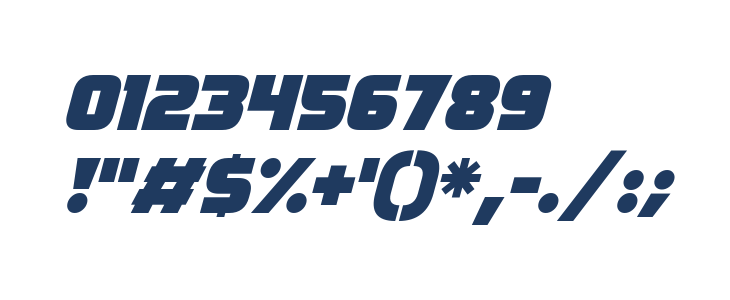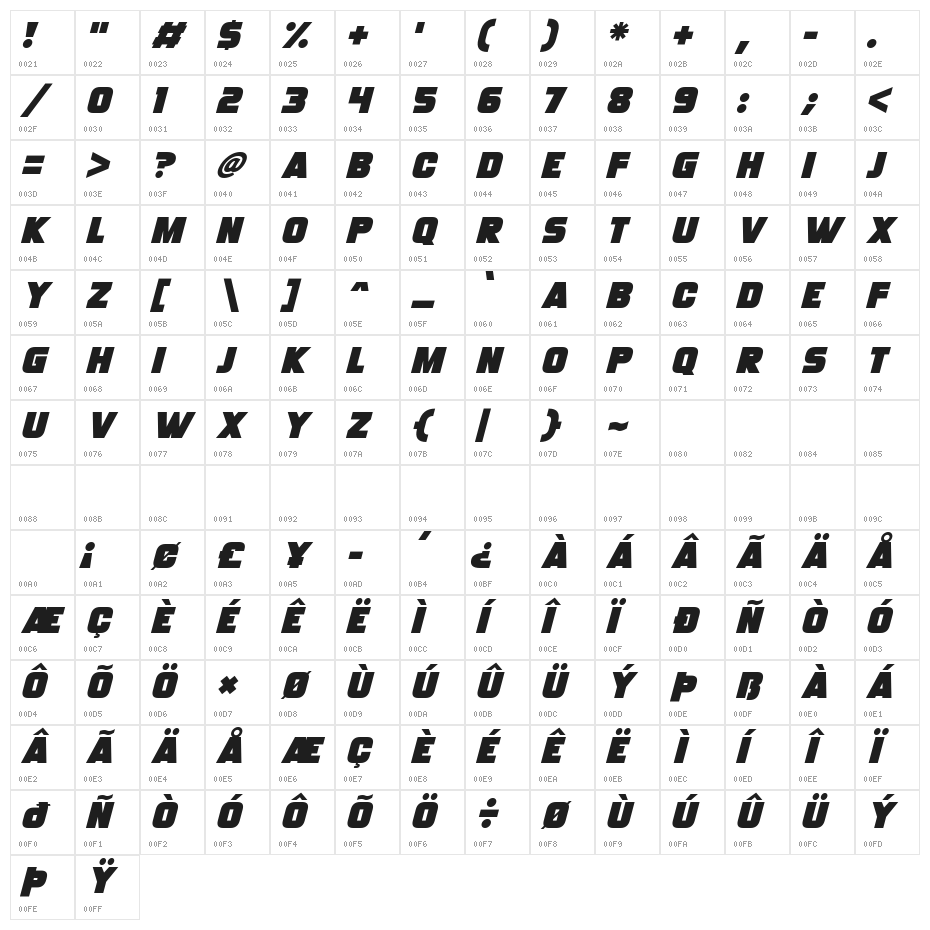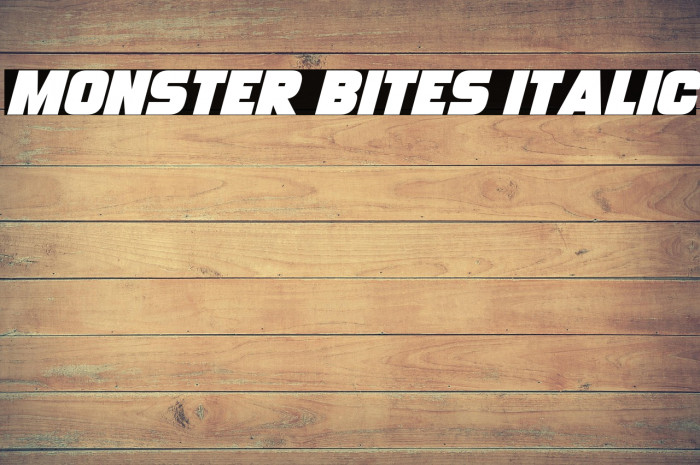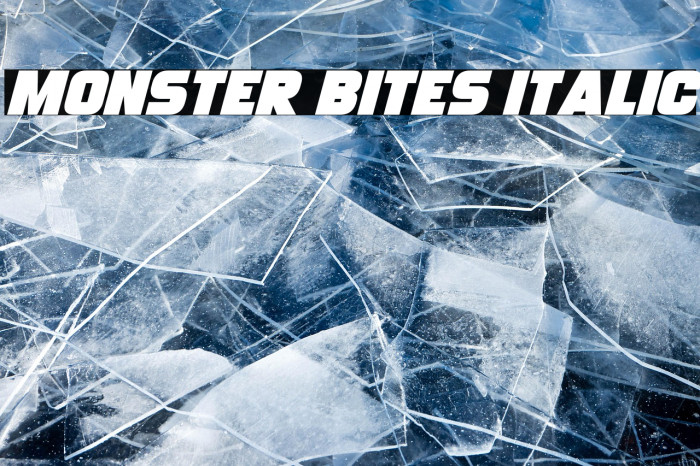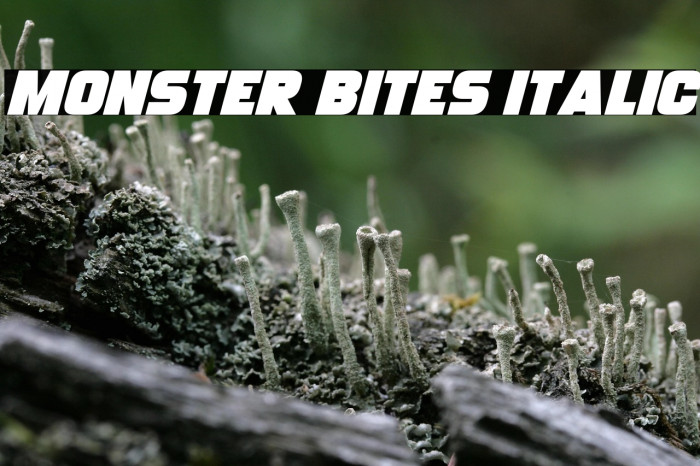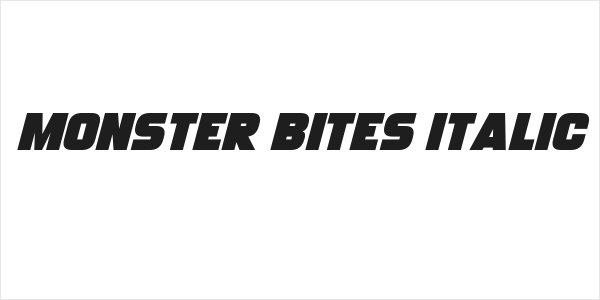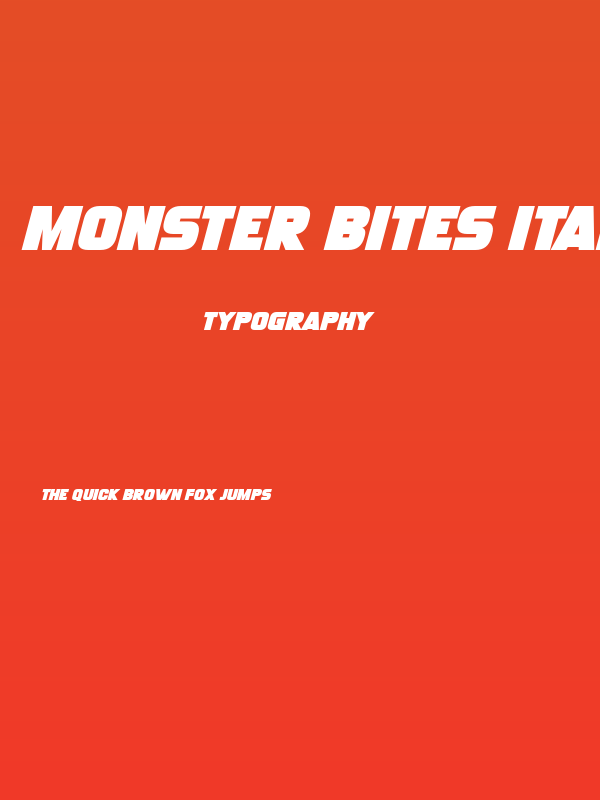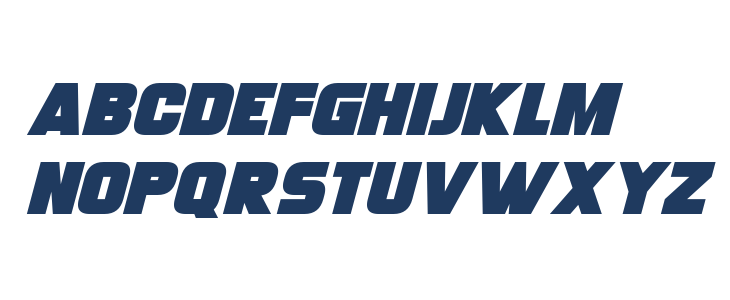
Monster Bites Italic Font
Monster Bites Italic Description
This bold, italic typeface features a strong, dynamic presence with its thick, angular strokes and slanted orientation. The uppercase letters are robust and commanding, while the lowercase maintains a consistent weight and style. The numerals and special characters are equally bold, ensuring a cohesive look across all text elements. The font's aggressive style is well-suited for impactful headlines and attention-grabbing designs. Its wide character width and tight spacing enhance its boldness, making it ideal for projects that require a strong visual statement.
| Proposed Projects | Ideal for sports branding, action movie posters, and dynamic advertising campaigns. |